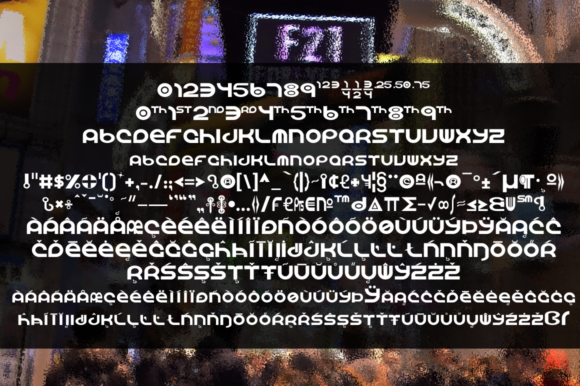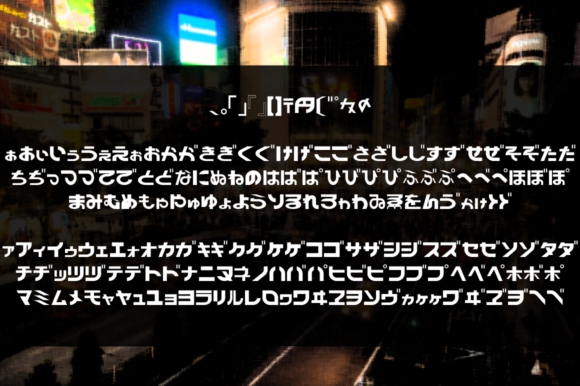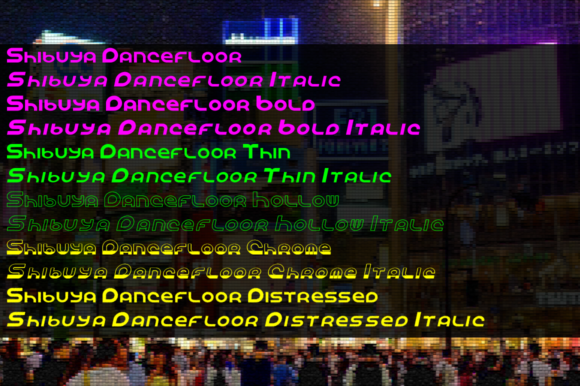
Introduction to Shibuya Dancefloor Family Font
Imagine yourself lost in the vibrant streets of Tokyo, surrounded by neon lights and bustling energy. As you take a step back to capture the essence of the scene, you realize the perfect moment to freeze time is when the city’s rhythm meets its iconic dancefloors. That’s when the Shibuya Dancefloor Family Font kicks in, elevating your design project with a touch of high-quality Japanese flair.
This free download font is a game-changer for designers seeking a unique design resource that adds an anime or Sci-Fi feel to their creative project. With its transparent background and versatile style, the Shibuya Dancefloor Family Font is perfect for any occasion that demands a touch of Tokyo’s edgy sophistication.
Whether you’re working on a futuristic concept, a Japanese-inspired art piece, or a promotional campaign, this font is a valuable asset that will transport your audience to the heart of Tokyo’s dynamic dancefloors.
Key Features of Shibuya Dancefloor Family Font
- High-quality font for creative projects, ideal for use in design and digital art.
- Comes with a transparent background, allowing for easy layering and composition.
- Part of a comprehensive font family, offering a wide range of styles and variations.
- Supports a wide range of languages, making it a versatile design resource.
Honest Review: Shibuya Dancefloor Family Font
I recently had the chance to work with the Shibuya Dancefloor Family Font, and I’m excited to share my thoughts on this design resource.
What works well: ✨ The font is incredibly versatile and suitable for a wide range of creative projects, from digital art to graphic design. The free download option is also a huge plus, making it accessible to designers of all levels. The transparent background is a thoughtful touch, allowing for seamless integration with various design elements.
The font’s high quality is evident in its crisp lines and smooth typography, making it perfect for projects where readability is crucial.
Overall impression: I’m impressed with the Shibuya Dancefloor Family Font’s potential and flexibility. With its high-quality design and free download option, it’s an excellent resource for designers looking to add a unique touch to their creative projects.
Key features:
- Transparent background for seamless integration
- High-quality design with crisp lines and smooth typography
- Limited character set may not be ideal for long-form content
The Shibuya Dancefloor Family Font is perfect for a variety of design projects, including social media graphics, flyers, posters, and presentations. Its unique style makes it ideal for creative projects, such as music festivals, concerts, and nightlife events.
To get the most out of the Shibuya Dancefloor Family Font, experiment with different font combinations and layering techniques. Use its transparent background to create a cohesive design that stands out from the crowd. With its high-quality design, you’ll be able to create a truly unique and eye-catching visual effect.